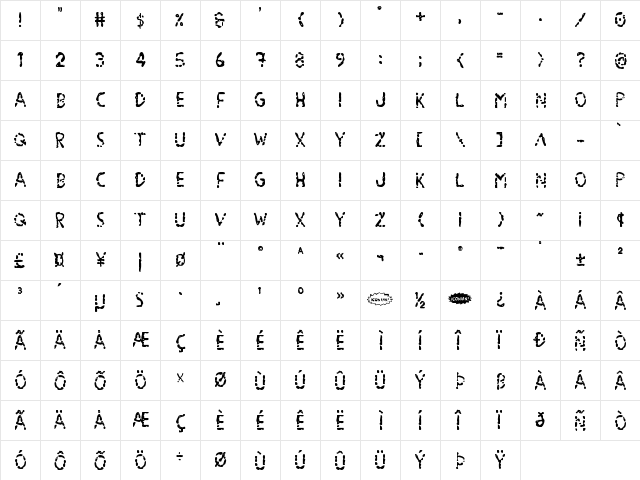
Blood Drenched Regular Font Preview
Blood Drenched Regular
Design Context for Blood Drenched Typeface
Blood Drenched carries an unsettling edge — its distorted letterforms are built to unsettle, perfectly suited to horror, Halloween, and dark creative work.
Ideal for Halloween projects, horror film titles, haunted house signage, and dark editorial design.
Font Pairing: Pair with a clean neutral sans-serif for body copy to let Blood Drenched's character lead without overwhelming the composition.
Pro Tip: Blood Drenched works best as a headline or focal element. Pair it against plain, neutral body text to amplify the contrast.